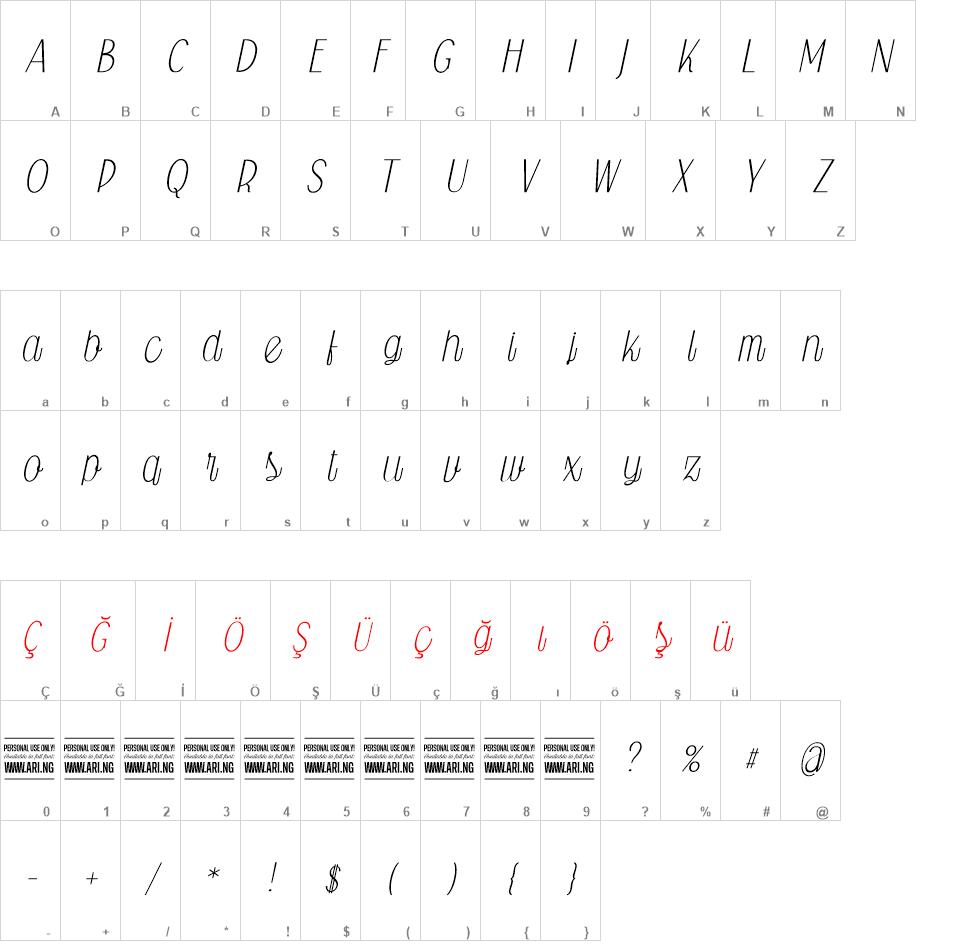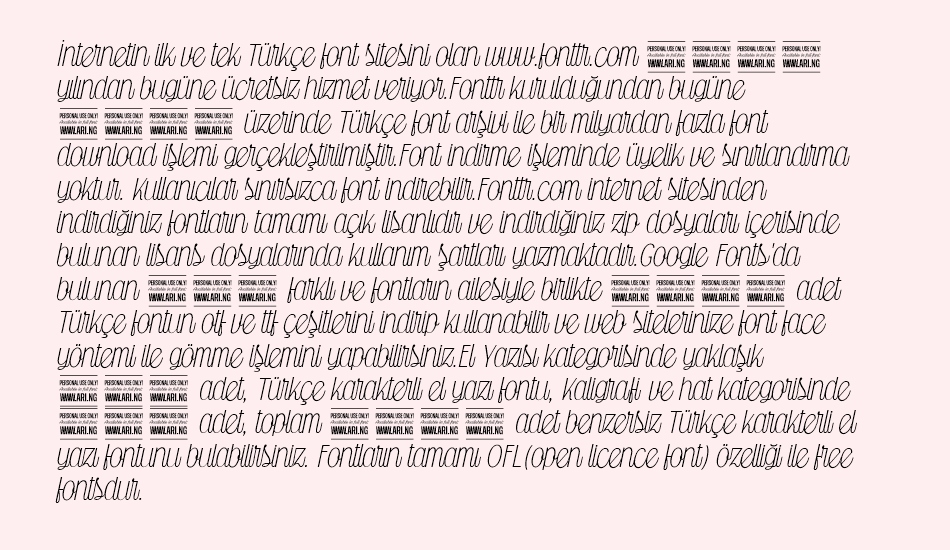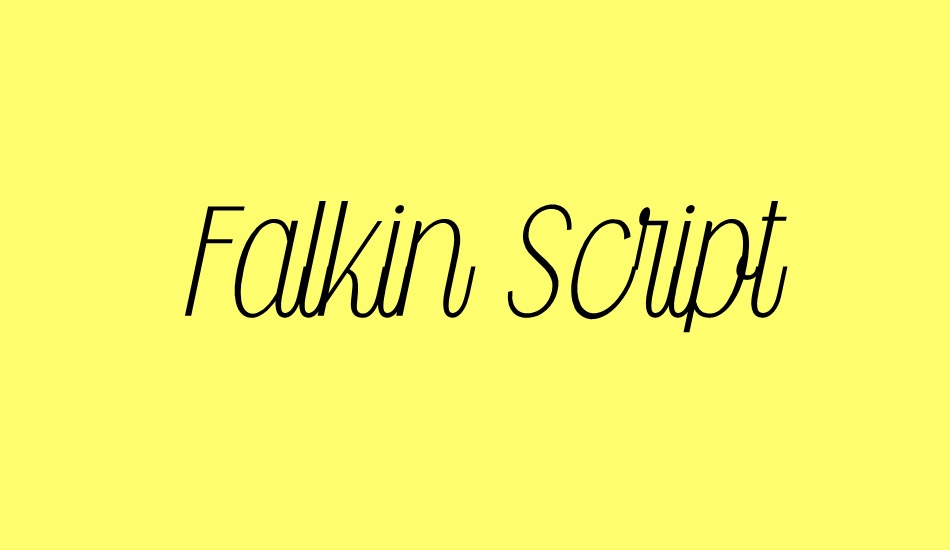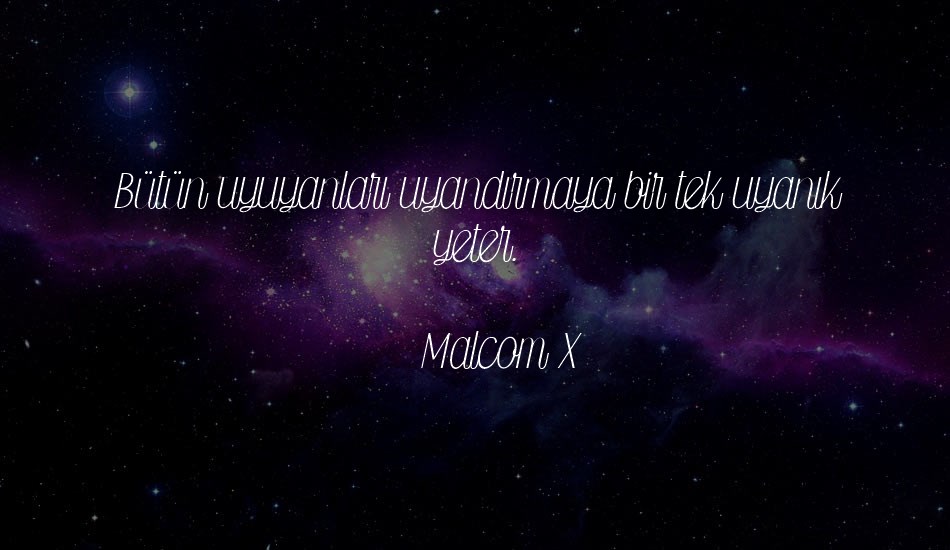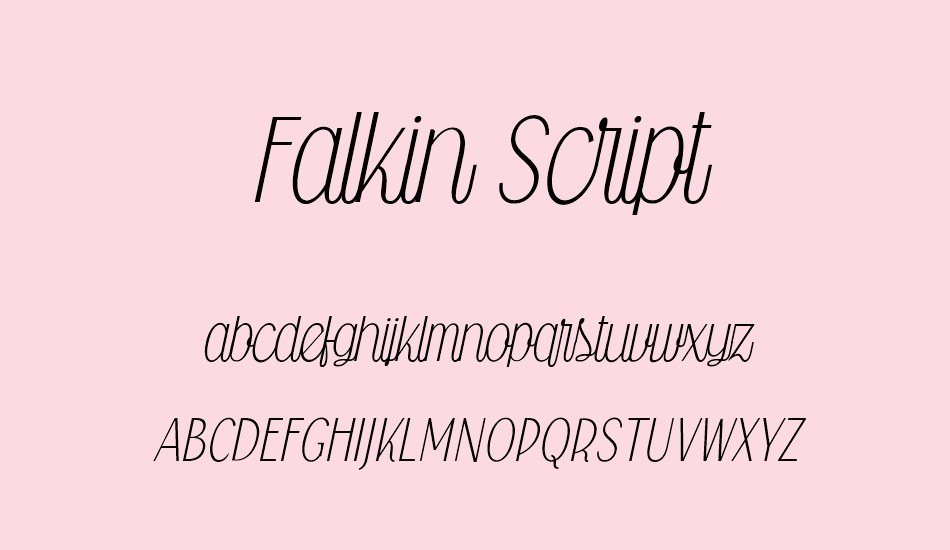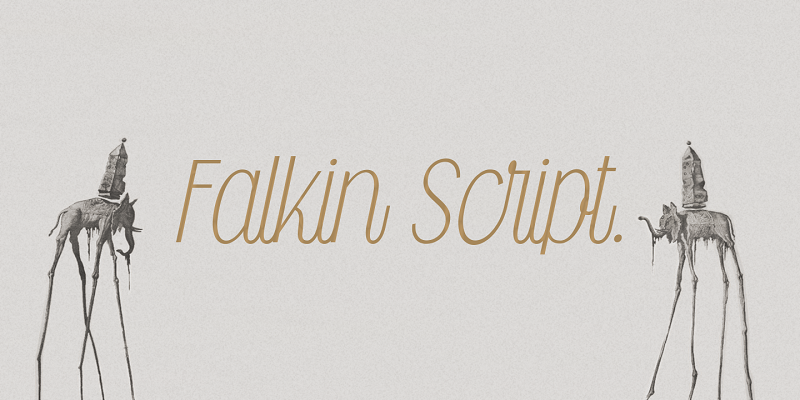
Falkin Script font
This is a 1900's typeface designed by M?ns Greb?ck.
Falkin Script comes in a regular, tilted script version, as well as an upright version.